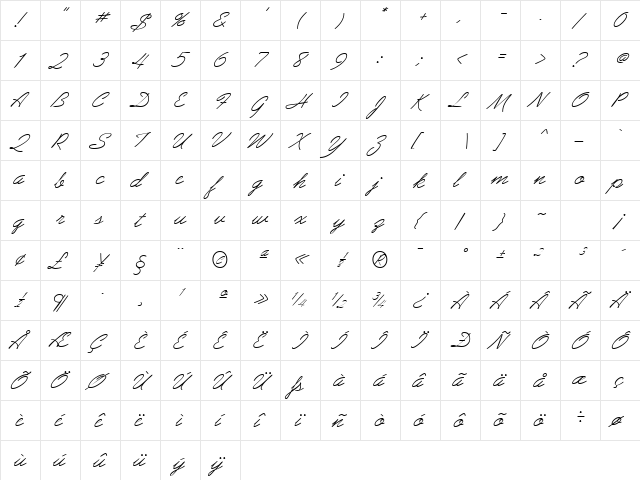
GE Arabesque Script Italic
Design Context for GE Arabesque Script Typeface
GE Arabesque Script brings a calligraphic fluidity to the page — its connecting strokes and expressive curves give it an unmistakably human quality.
Font Pairing: Combine GE Arabesque Script with a simple geometric sans for maximum contrast — the tension between flowing curves and clean structure is a classic typographic pairing.
Pro Tip: Pair GE Arabesque Script with a clean sans-serif for supporting text. The contrast between fluid script and geometric structure creates an elegant typographic hierarchy.